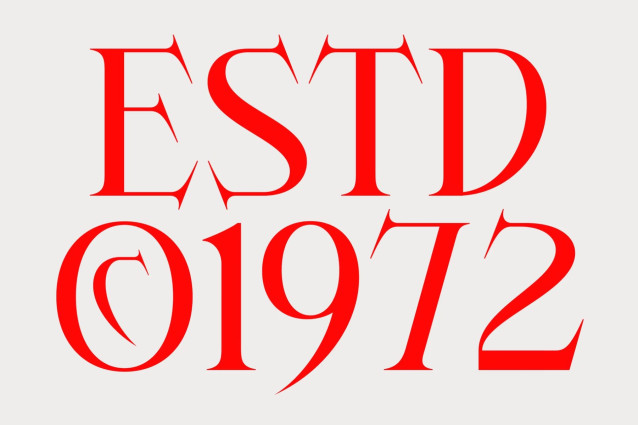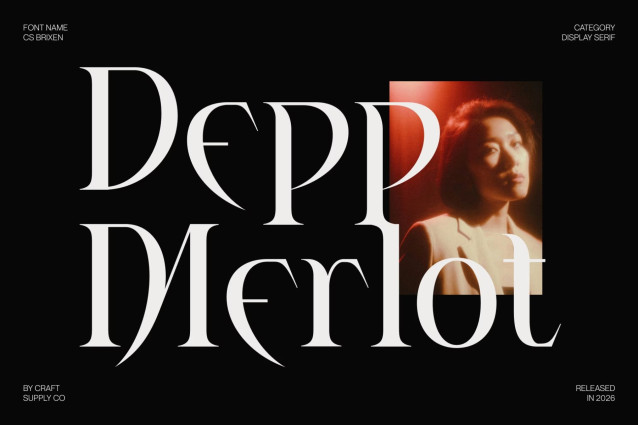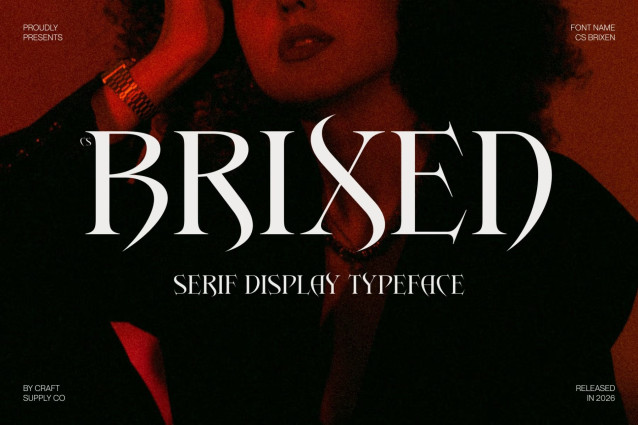
CS Brixen – Serif Font
CS Brixen – Contemporary Display Serif with Luxurious Editorial Elegance
Display Serif with Refined Contemporary Style
This is a contemporary display serif font designed to deliver sophistication, drama, and modern luxury. Featuring elegant proportions and meticulously crafted details, this typeface creates a commanding visual presence that feels both artistic and refined. It is crafted for designers who seek typography that elevates every composition with style and prestige.
Sharp Pointed Serifs with Distinctive Character
The defining feature of this font lies in its sharp pointed serifs that bring precision and elegance to every letterform. These distinctive details create a striking silhouette, adding sophistication and visual tension while maintaining a graceful and balanced appearance. The result is typography that feels bold, luxurious, and highly memorable.
High-Contrast Strokes with Editorial Beauty
This font features elegant high-contrast strokes that enhance its sense of refinement and exclusivity. The dramatic interplay between thick and thin lines creates depth, rhythm, and visual richness, making the font especially effective in large display settings. Combined with its artistic detailing, the typeface delivers a premium editorial aesthetic that captures attention effortlessly.